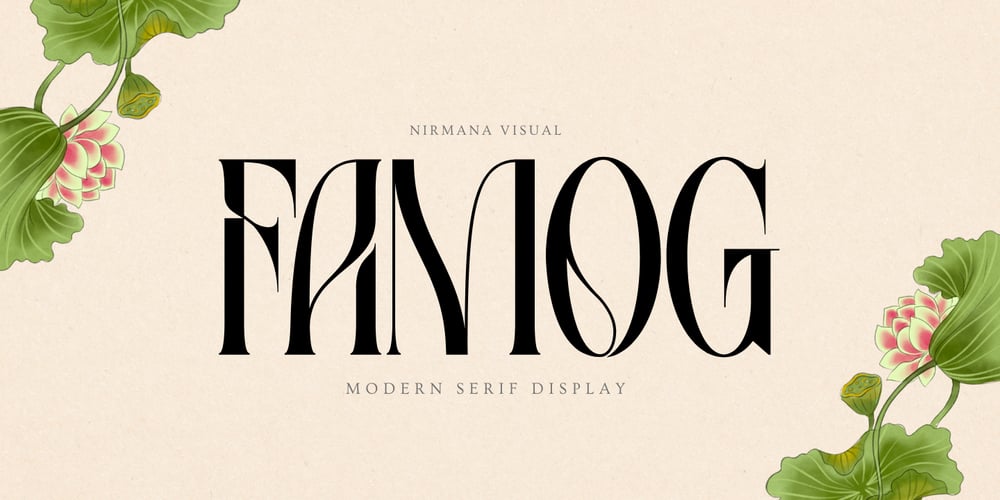
Famog Font Family was designed by Sigit Dwipa and published by Nirmana Visual. Famog contains 1 styles and family package options. Famog is modern display font designed to captivate attention and add a contemporary edge to your designs. With bold strokes, clean geometric forms, and unique character details, Famog exudes confidence and creativity. Its versatile style makes it ideal for headlines, logos, posters, and branding projects that demand a striking and memorable visual impact.